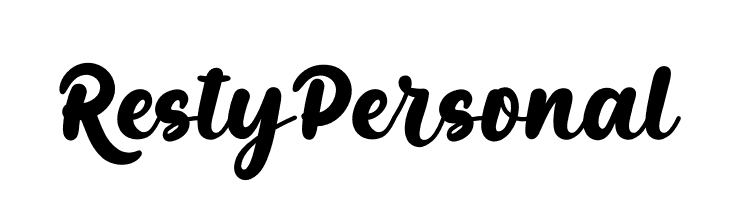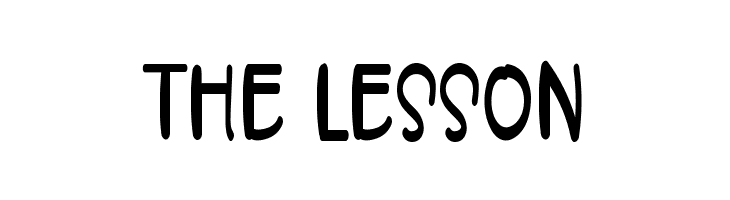
A playful, handwritten font with a bold and whimsical style.
A bold, flowing script font with elegant curves and smooth connections.
A bold, rugged font with a hand-crafted appearance and strong visual impact.
A bold, playful font with thick, rounded strokes and a whimsical style.
A playful, handwritten font with smooth, flowing lines and a casual vibe.
A playful, bold handwritten font with a casual and friendly style.
A bold, angular font with a dynamic and edgy style.
A bold, rounded, and playful handwritten font with a whimsical style.
A bold, playful script font with smooth, flowing strokes and rounded edges.
A bold, expressive script font with flowing, cursive letterforms.